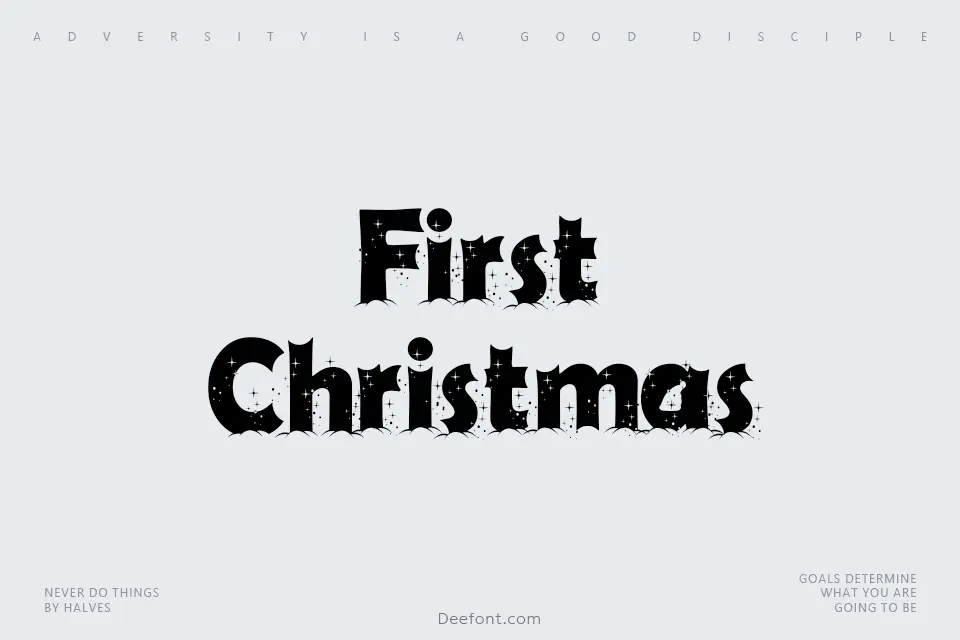
First Christmas Font
First Christmas is a festive display font designed by LJ Design Studios, featuring a cheerful and decorative style perfect for holiday-themed designs. This charming typeface combines playful letterforms with a Christmas spirit, making it ideal for greeting cards, invitations, posters, and seasonal merchandise. With its distinctive character and versatile applications, the font adds a joyful and celebratory touch to any creative project during the holiday season.